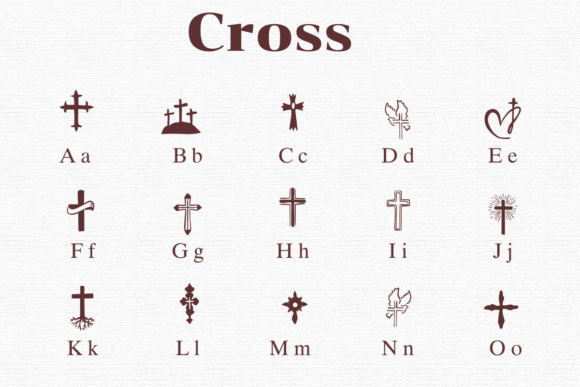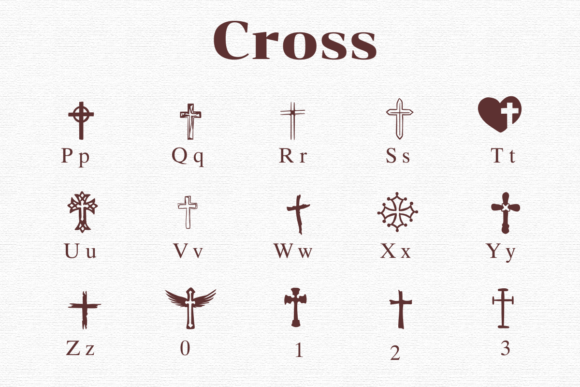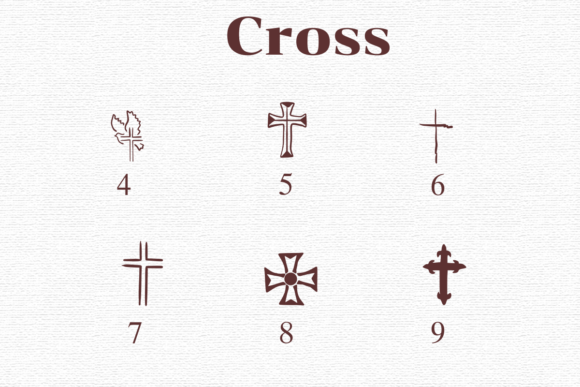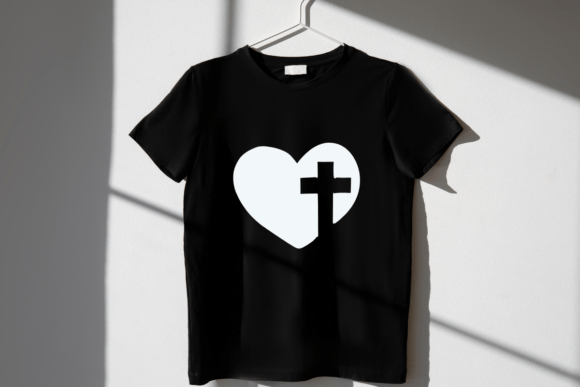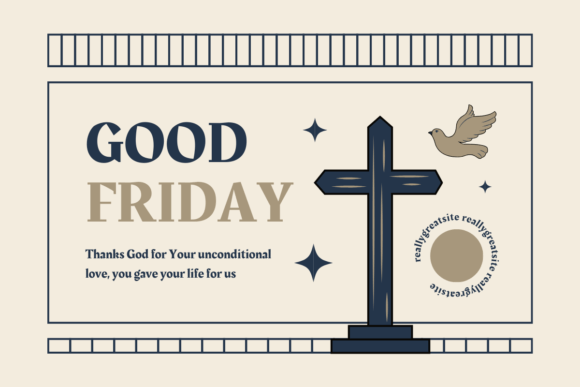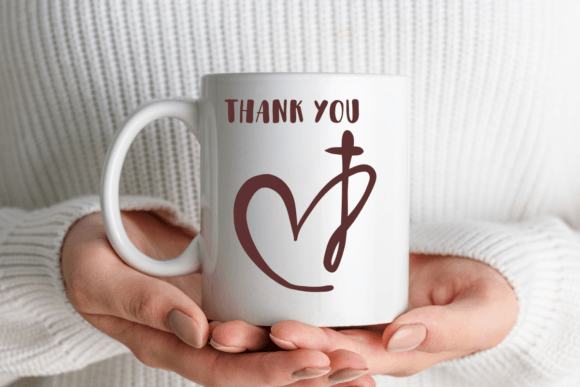
Introducing Cross Font: A Unique Dingbat Font for Decorative and Religious Projects
Are you a designer or crafter looking for a unique and versatile font to add a touch of elegance and spirituality to your projects? Look no further than Cross Font, a stunning dingbat font featuring a variety of cross designs. With its wide range of styles, from simple to ornate, this font is perfect for decorative and religious projects, allowing you to create beautiful and meaningful designs.
What is Cross Font?
Cross Font is a specially designed dingbat font that showcases a diverse collection of cross designs. Each character in this font displays a unique style of cross, ranging from minimalist and modern to intricate and ornate. This font is ideal for designers, crafters, and anyone looking to add a touch of spirituality and elegance to their work.
Key Features of Cross Font
- Variety of Cross Designs: With a wide range of cross designs, you can choose the perfect style to suit your project, from simple and modern to intricate and ornate.
- Unique Characters: Each character in the font features a unique cross design, allowing you to create diverse and interesting designs.
- Decorative and Religious Use: The font is perfect for decorative and religious projects, such as creating greeting cards, invitations, and other materials.
- Versatile: The font can be used in various creative works, including graphic design, crafting, and digital art.
Uses of Cross Font
Cross Font is an incredibly versatile font that can be used in a variety of projects, including:
- Religious Materials: Create beautiful and meaningful materials for religious events, such as church bulletins, prayer cards, and inspirational quotes.
- Greeting Cards: Design stunning greeting cards for special occasions, such as Easter, Christmas, and other holidays.
- Digital Art: Use the font to create unique and eye-catching digital art, such as wallpapers, social media graphics, and more.
- Crafting: Incorporate the font into your crafting projects, such as scrapbooking, journaling, and card making.
Tips for Using Cross Font
To get the most out of Cross Font, here are some tips:
- Experiment with Different Sizes: Try using the font in different sizes to create visual interest and hierarchy in your designs.
- Combine with Other Fonts: Pair Cross Font with other fonts to create a unique and visually appealing design.
- Use in Combination with Images: Use the font in combination with images or illustrations to create a beautiful and meaningful design.
Cross Font is a unique and versatile dingbat font that is perfect for designers and crafters looking to add a touch of elegance and spirituality to their projects. With its wide range of cross designs, from simple to ornate, this font is ideal for decorative and religious projects. Whether you’re creating greeting cards, digital art, or crafting projects, Cross Font is a great choice.